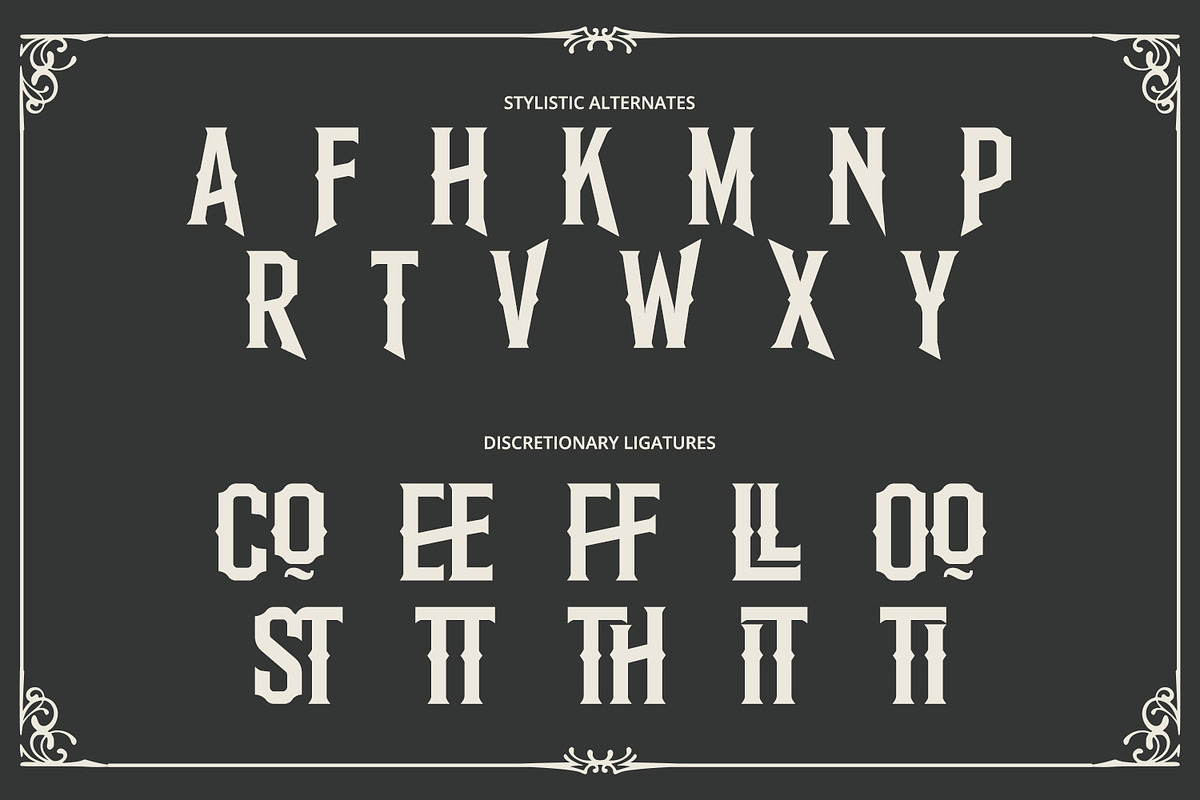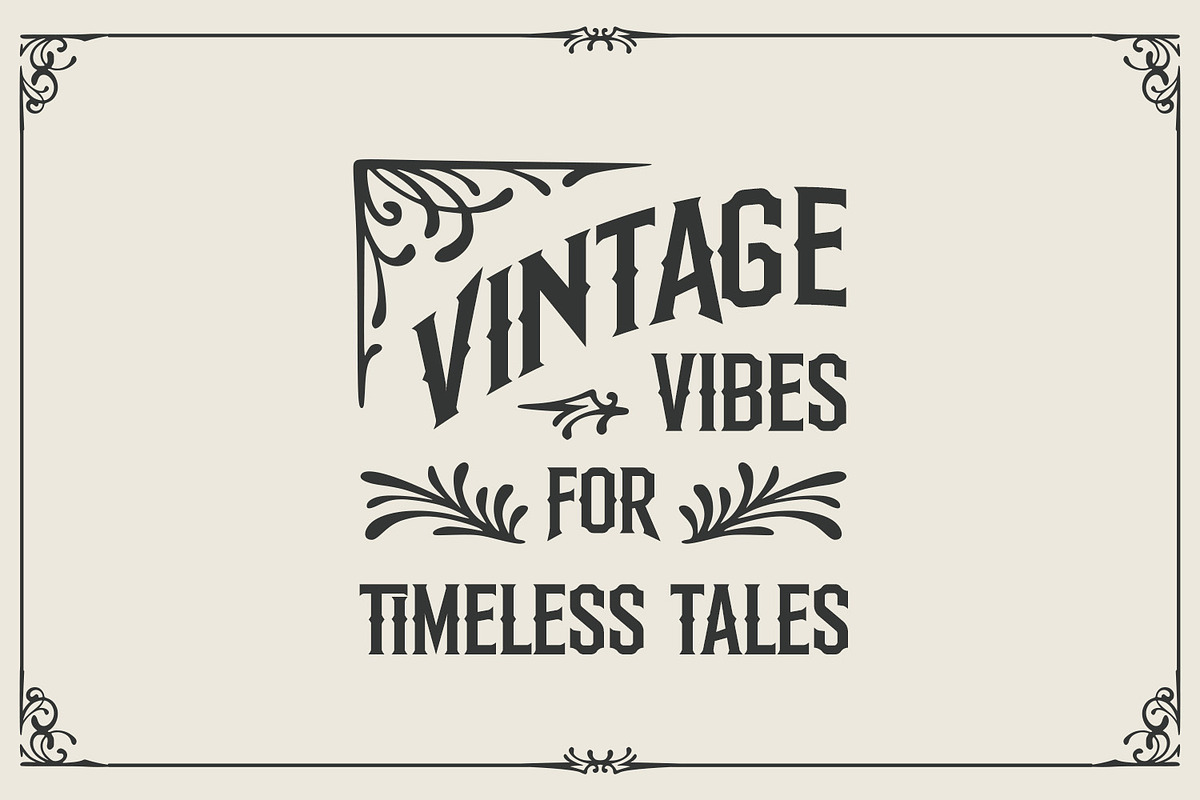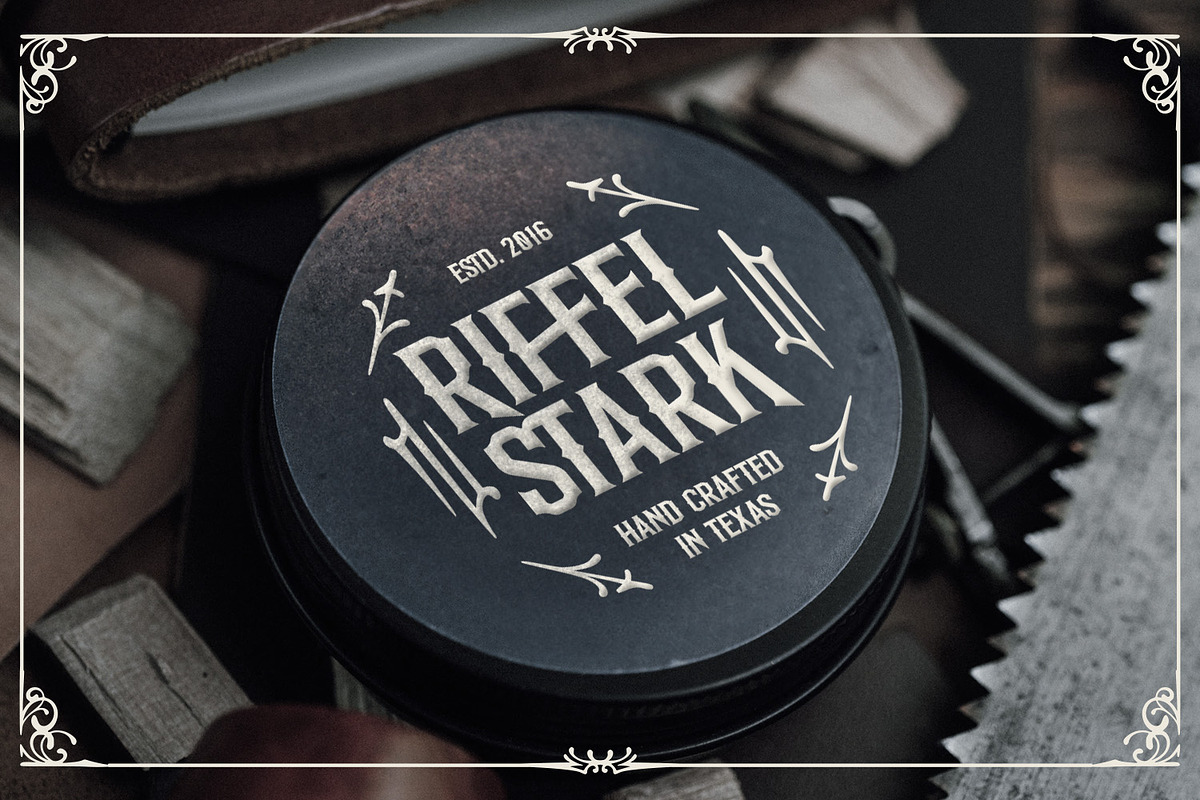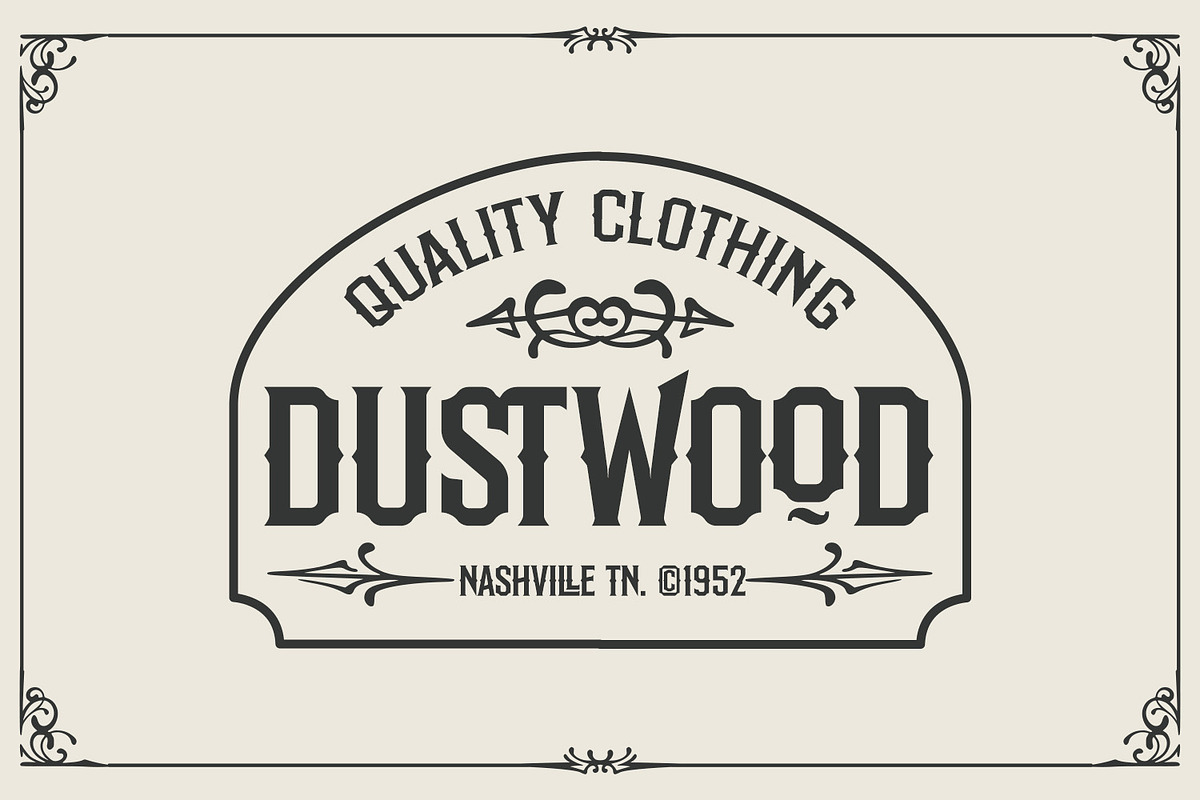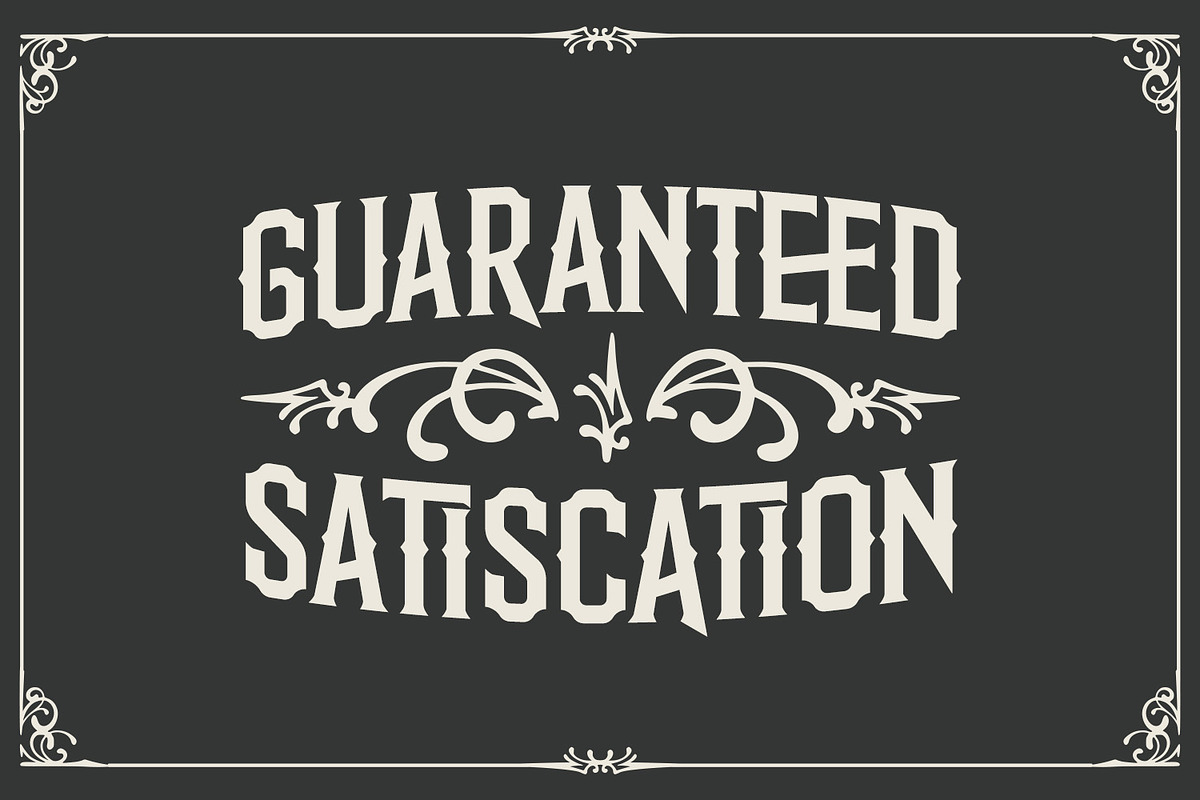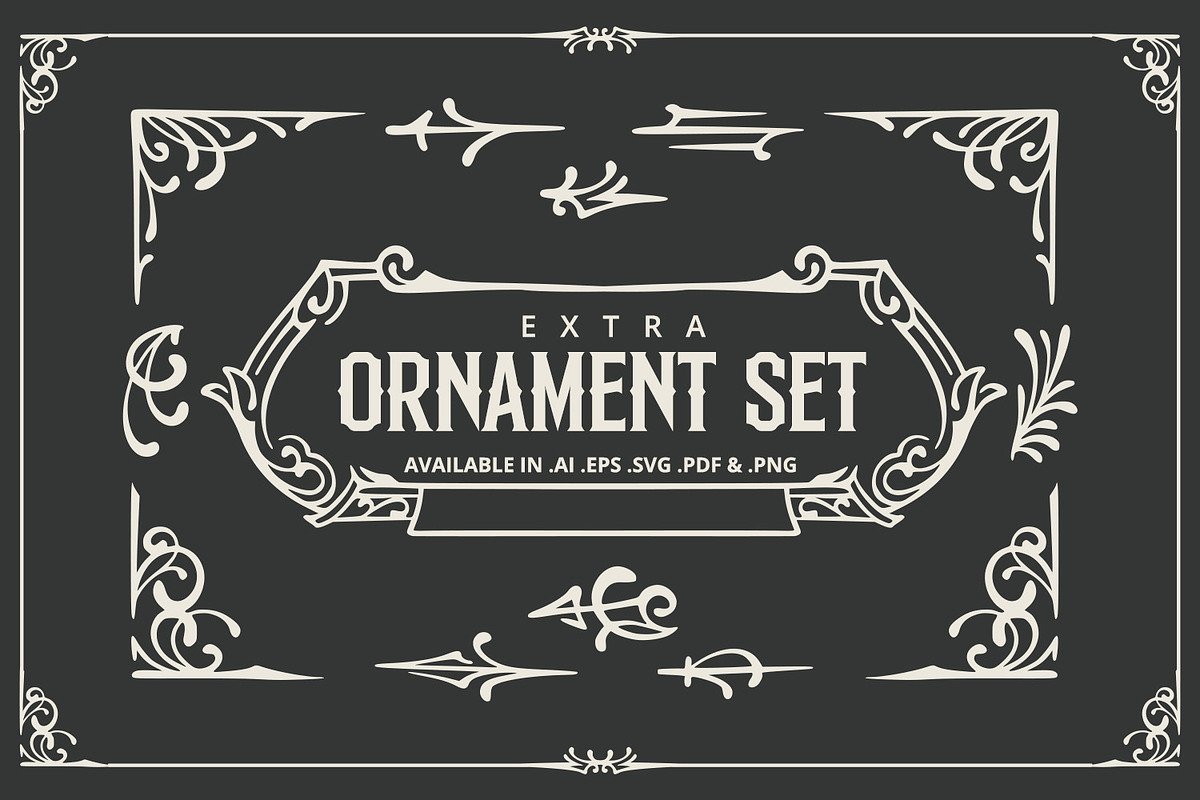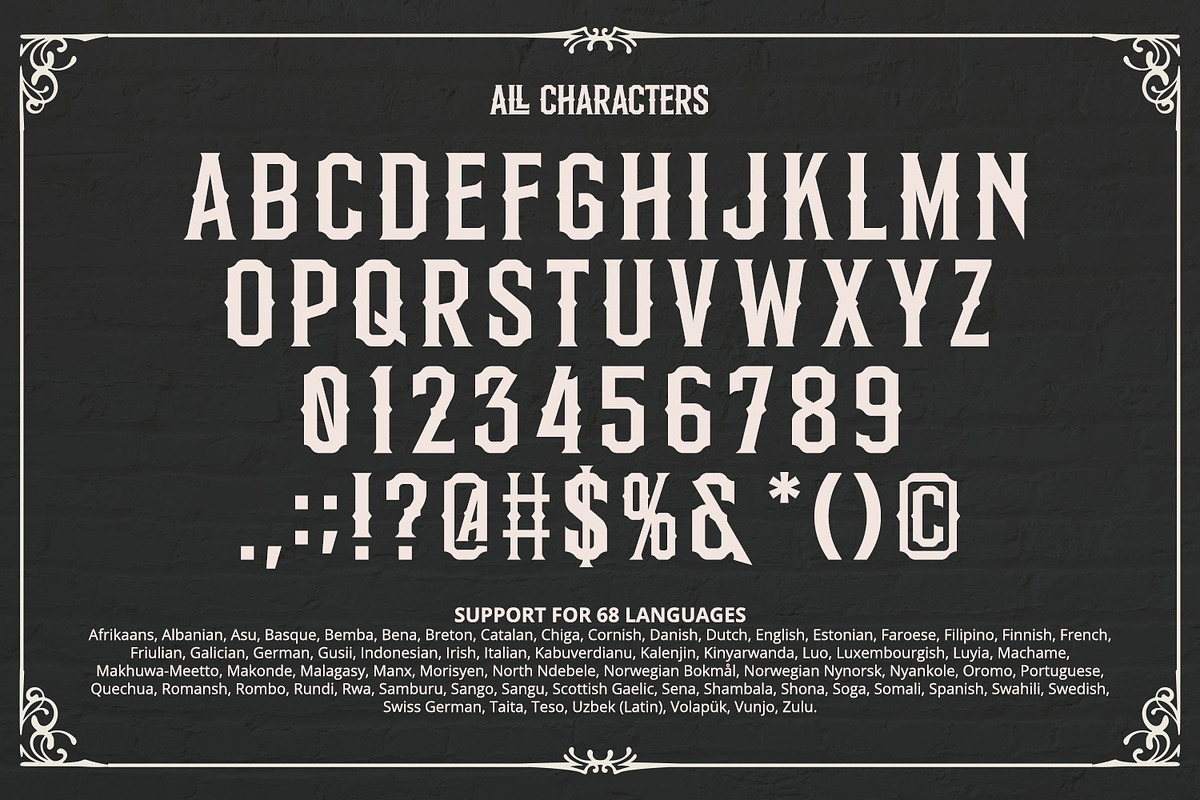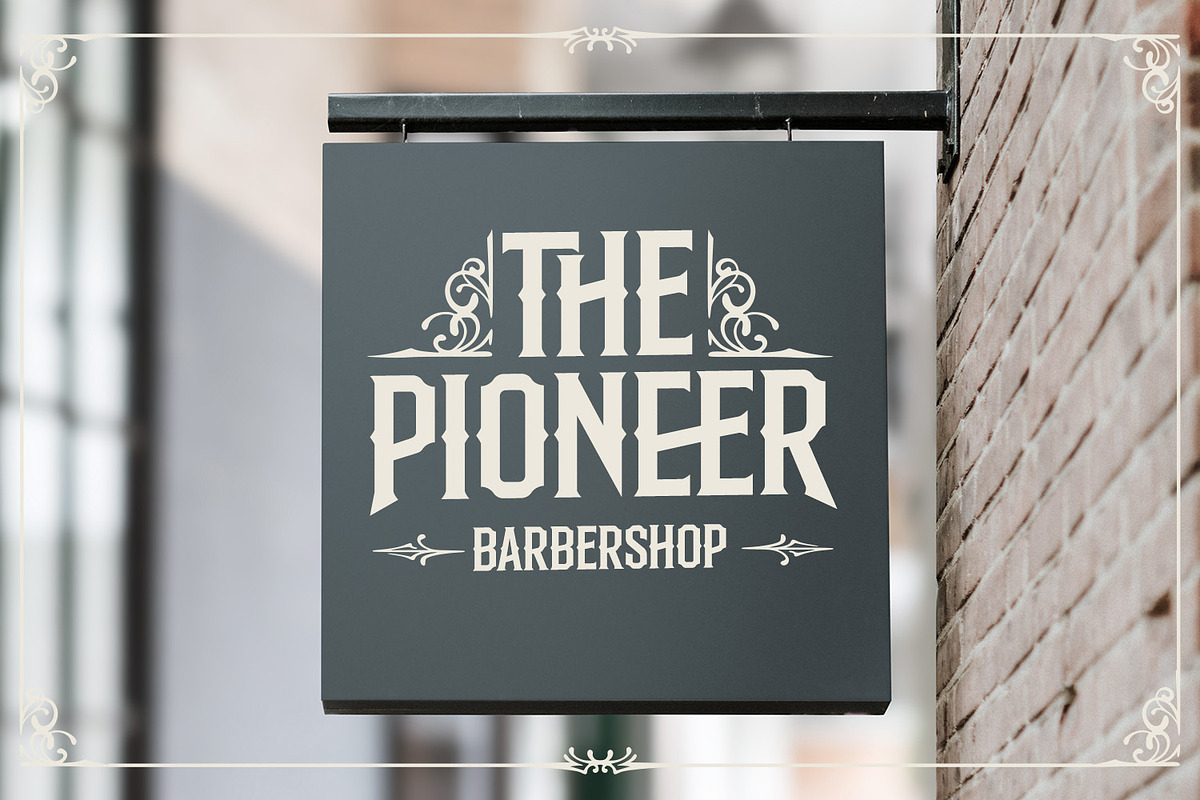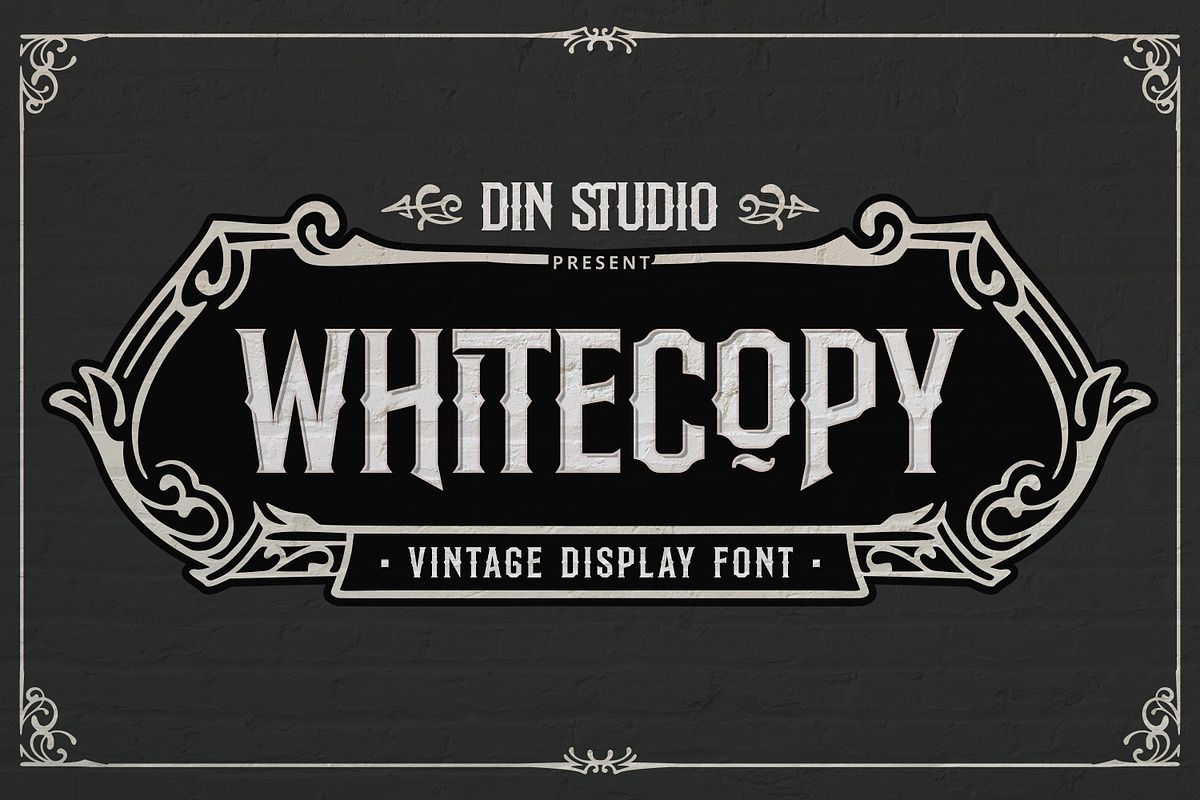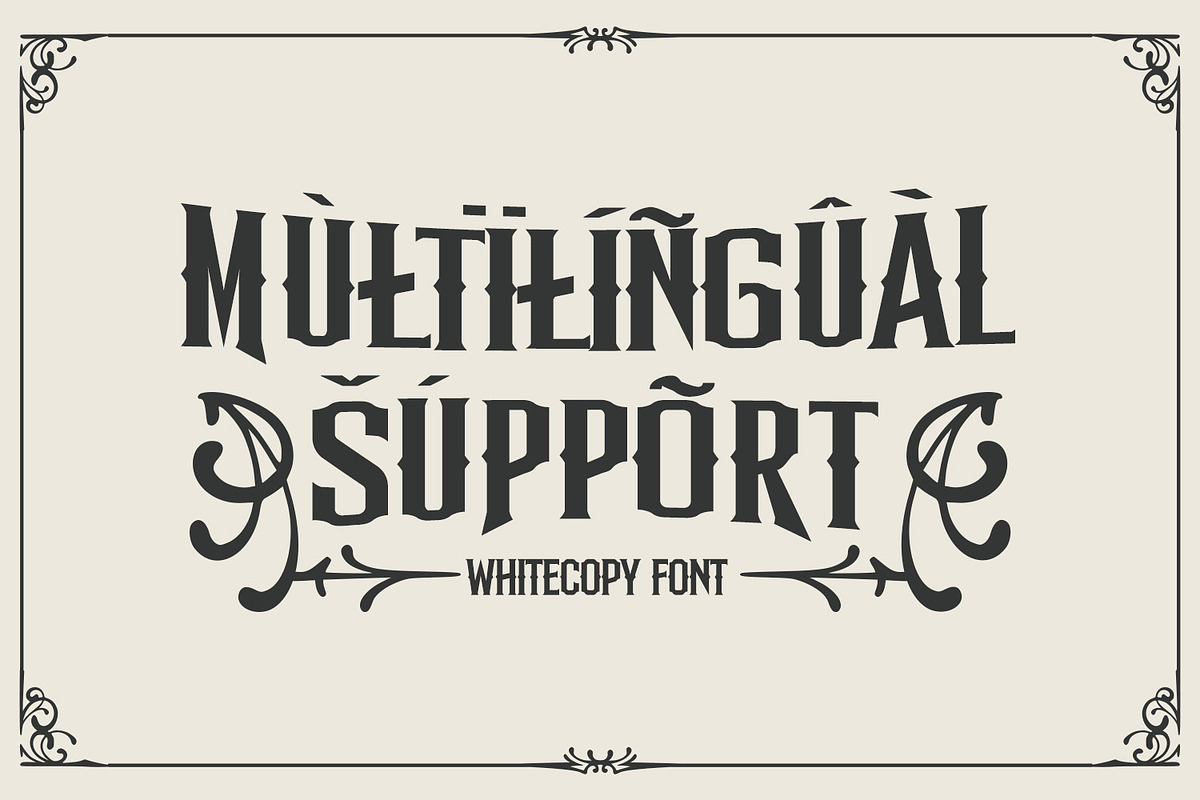
Whitecopy
Introducing Whitecopy – a vintage display font that blends boldness with classic charm. Crafted in uppercase with a substantial thickness, Whitecopy makes a powerful statement while maintaining an air of sophistication. The consistent letter proportions ensure a harmonious and cohesive look, while the subtly ornamented outline adds a touch of intricate detail, enhancing its vintage appeal. As an extra, this font gives ornaments. In addition, enjoy the features here.
Whitecopy fits in logos, posters, flyers, branding materials, print media, editorial layouts, and many more designs. Find out more ways to use this font by taking a look at the font preview.